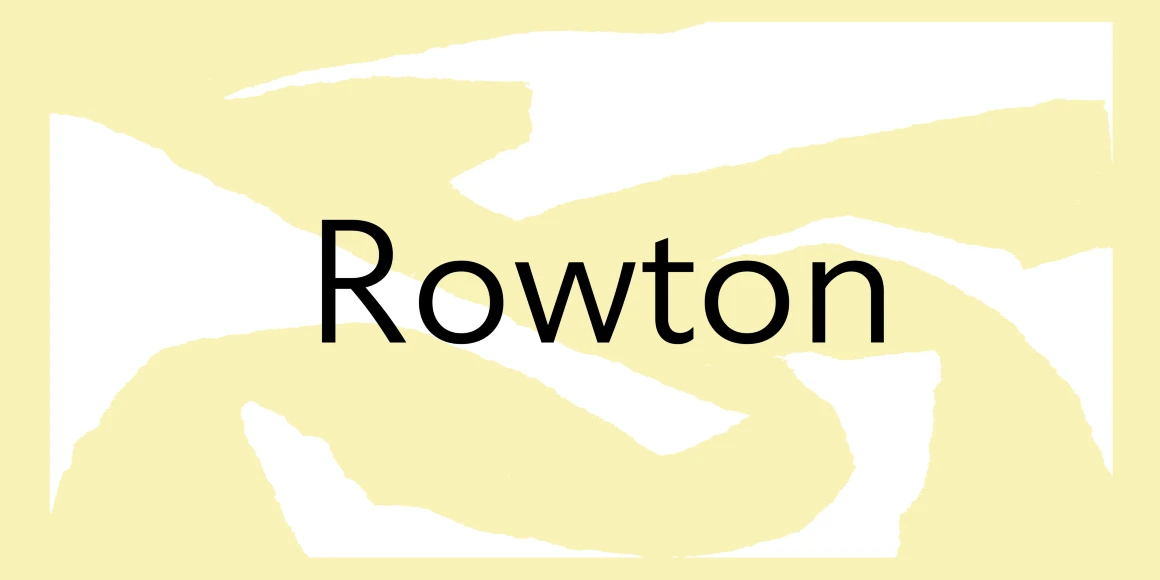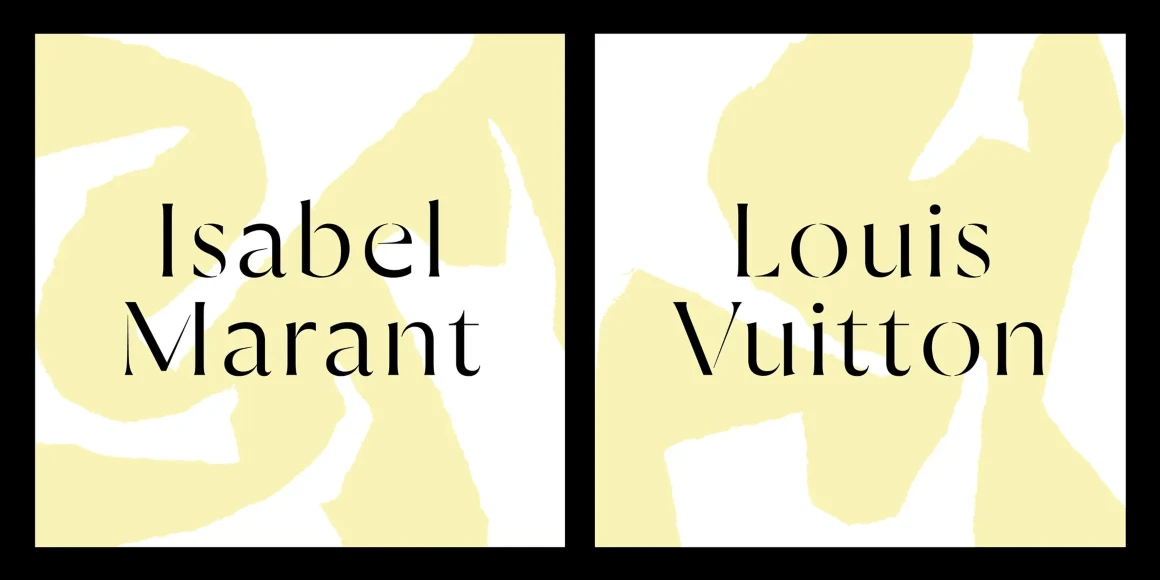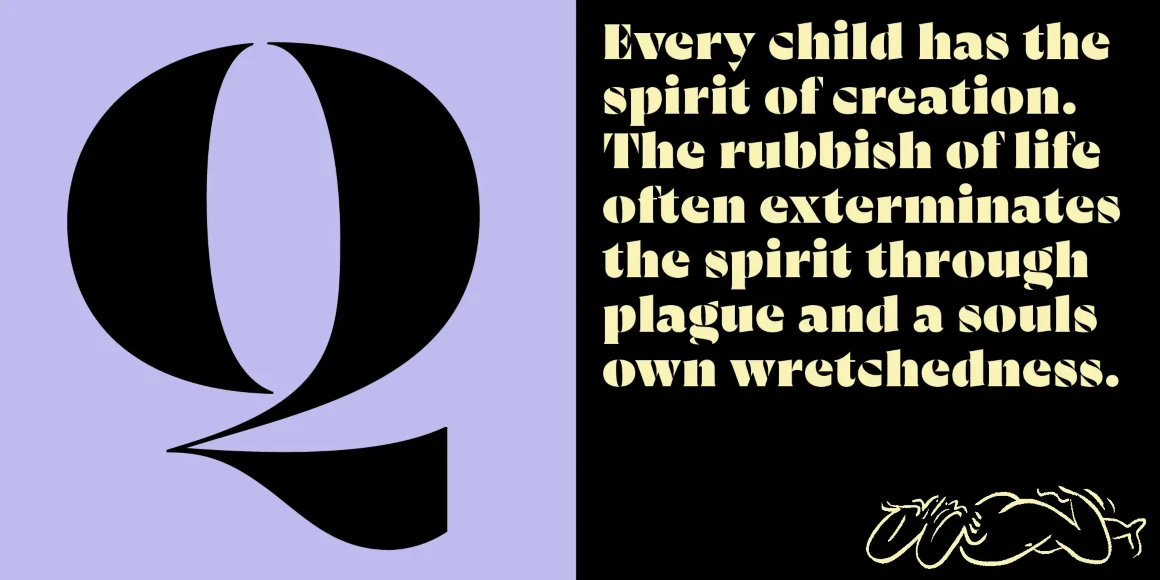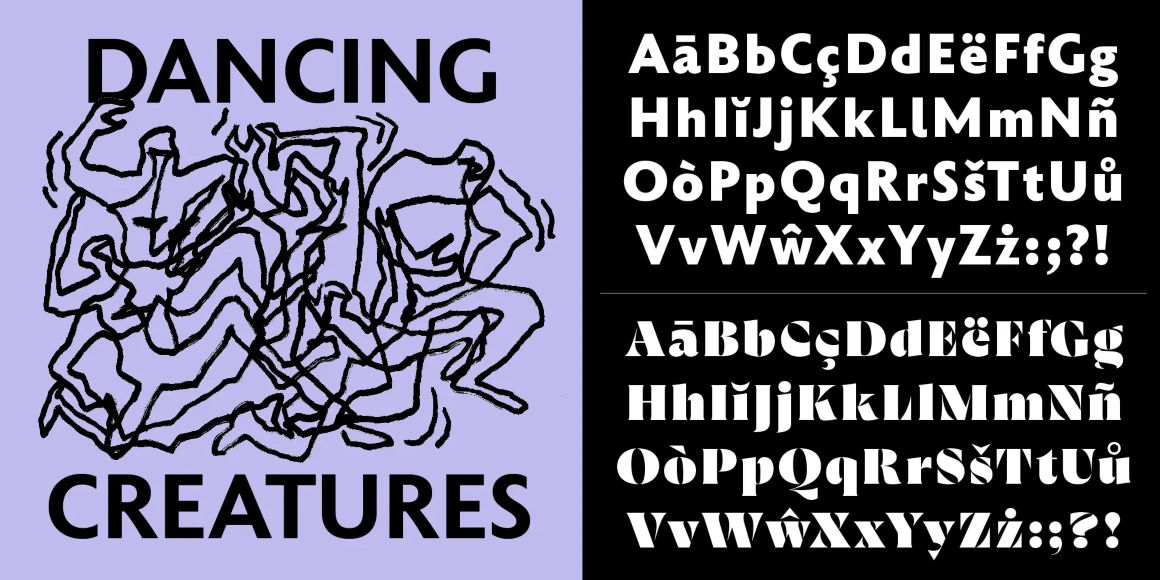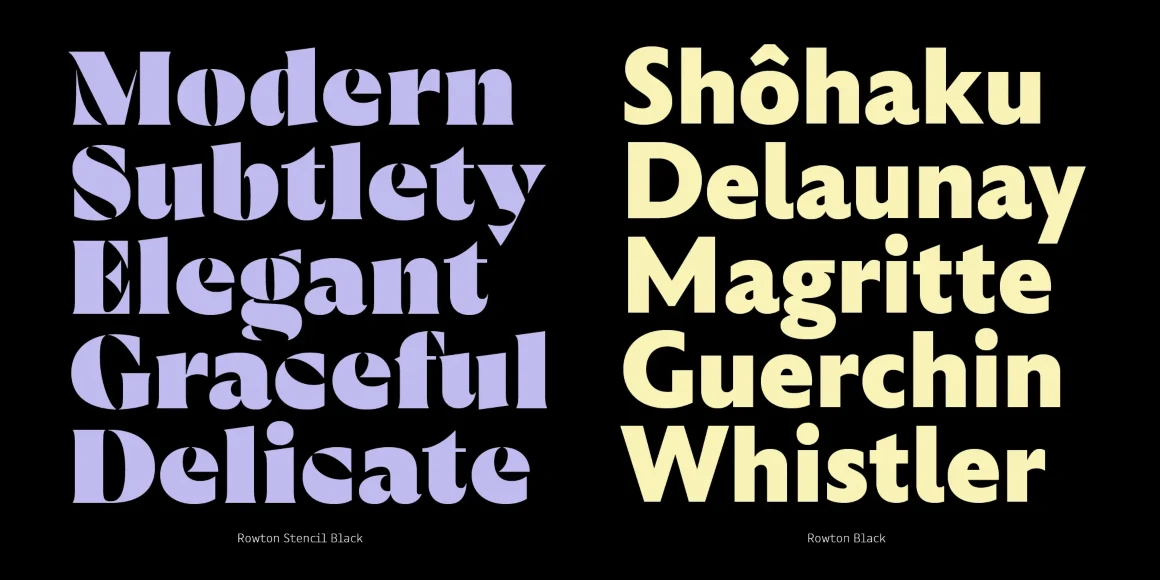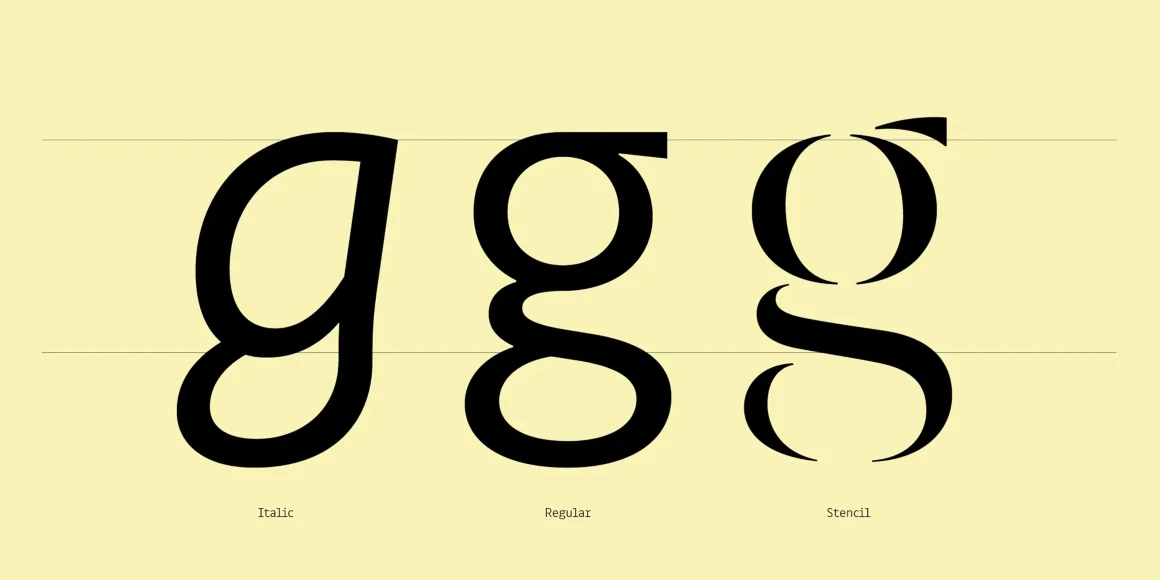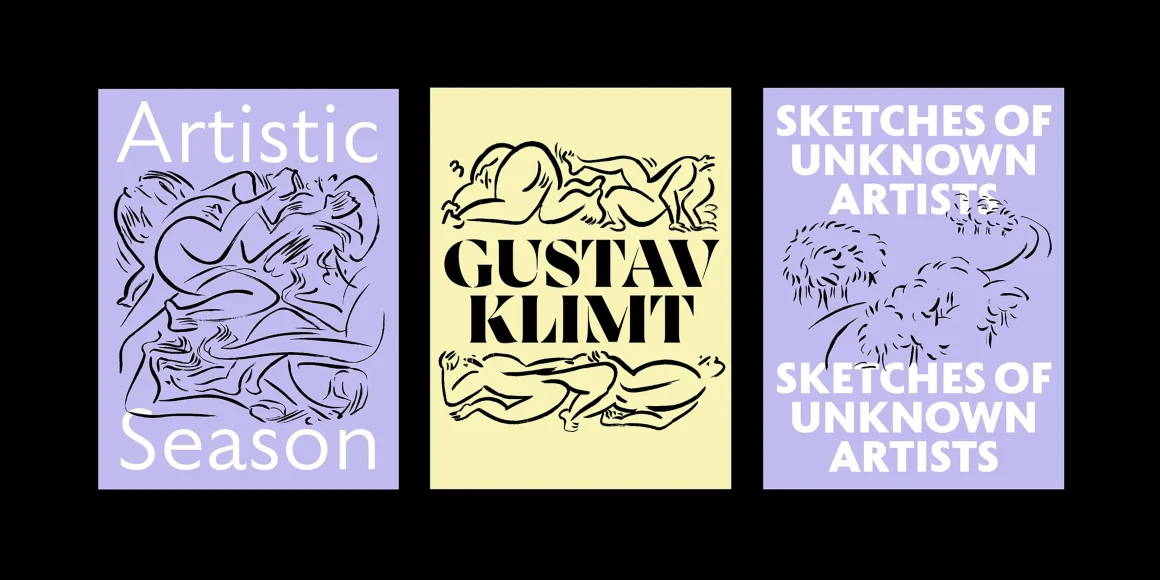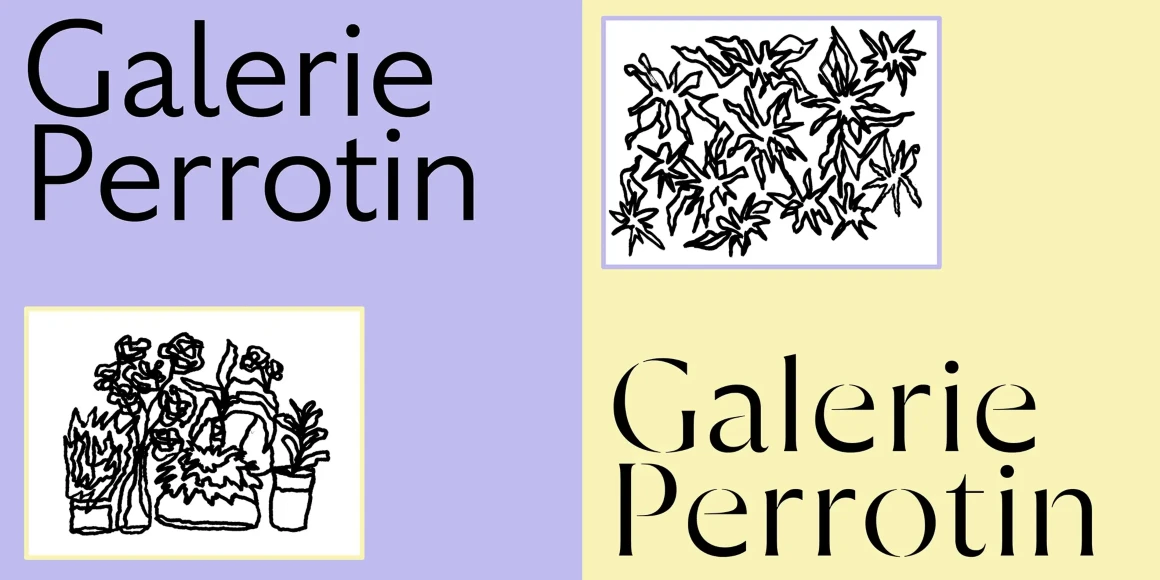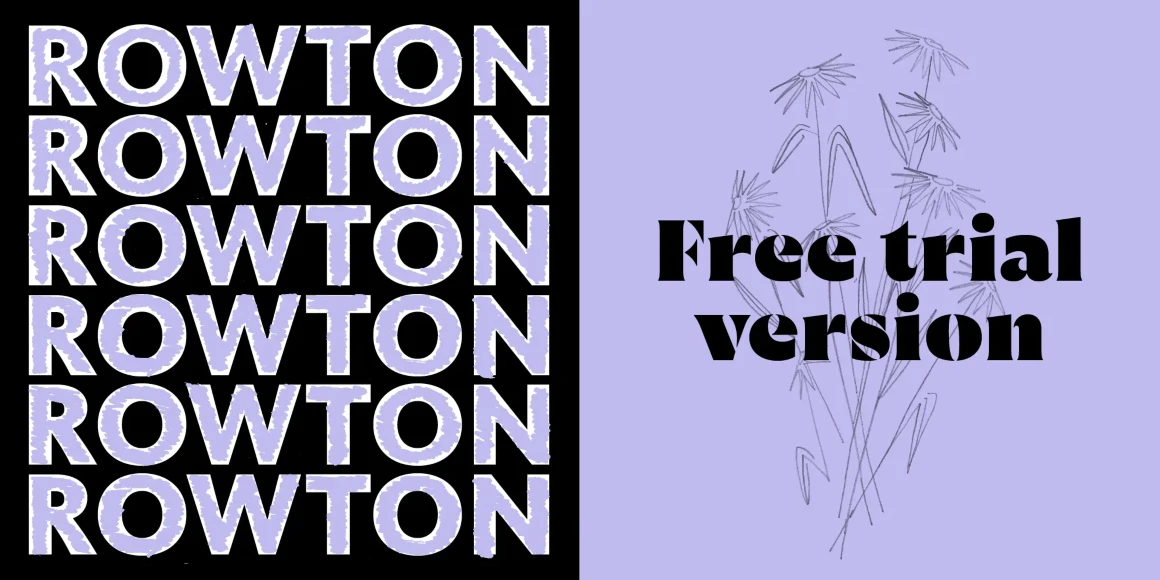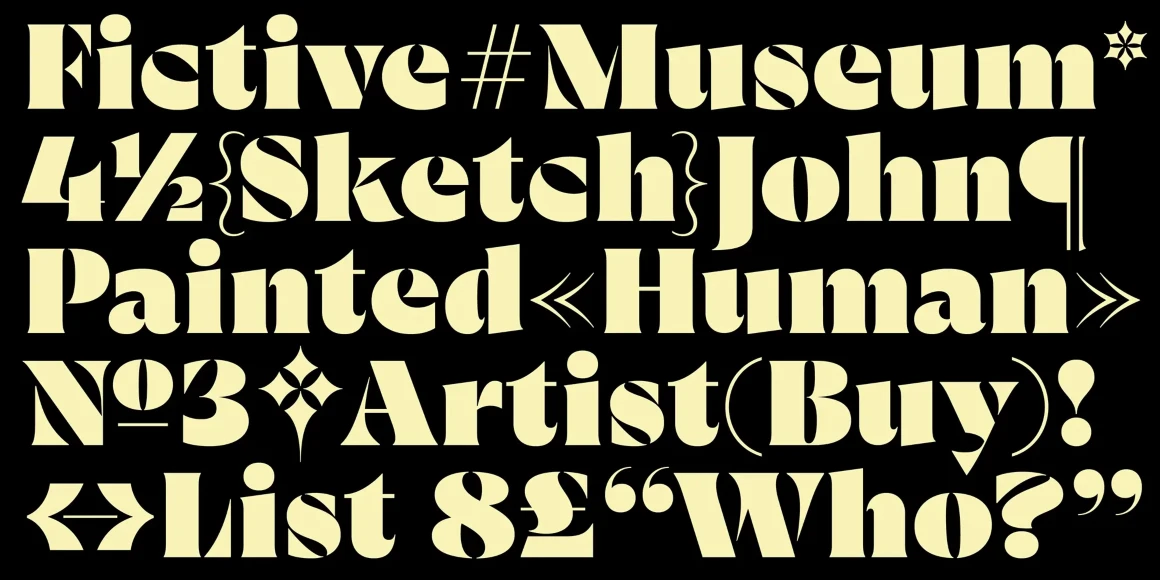
![Rowton font by Black[Foundry] — the word “Rowton” in upright sans-serif letters, on a background of torn paper shapes in pale yellow and white](https://typographer.io/1/assets/blk:rowton/banner-1.webp:size(1160,580)?dad2)
![Rowton font by Black[Foundry] — the words “Modern”, “Subtlety”, “Elegant”, “Graceful”, and “Delicate” in a light purple stencil serif, and the words “Shôhaku”, “Delaunay”, “Magritte”, “Guerchin”, and “Whistler” in a yellow upright serif.](https://typographer.io/1/assets/blk:rowton/banner-2.webp:size(1160,580)?d439)
![Rowton font by Black[Foundry] — three lowercase letters “g” in italic, upright sans, and seriffed stencil styles, labeled “Italic,” “Regular,” and “Stencil”](https://typographer.io/1/assets/blk:rowton/banner-3.webp:size(1160,580)?9f10)
![Rowton font by Black[Foundry] — three posters with different artworks and text: the first reads “Artistic Season” with abstract figures, the second “GUSTAV KLIMT” with figures, and the third “SKETCHES OF UNKNOWN ARTISTS” with trees.](https://typographer.io/1/assets/blk:rowton/banner-4.webp:size(1160,580)?6d70)
![Rowton font by Black[Foundry] — the words “Galerie Perrotin” in an upright sans serif and a seriffed stencil, with two images of hand-drawn plants.](https://typographer.io/1/assets/blk:rowton/banner-5.webp:size(1160,580)?39d7)
![Rowton font by Black[Foundry] — the word “ROWTON” repeated six times in a distressed sans serif, and the words “Free trial version” in a bold serif, over a sketch of flowers](https://typographer.io/1/assets/blk:rowton/banner-6.webp:size(1160,580)?048e)
![Rowton font by Black[Foundry] — five lines of large, upright, high-contrast serif letters and symbols, including the words Fictive#Museum*, 4Sketch}John, PaintedHuman, N3Artist(Buy)!, and List 8Who?](https://typographer.io/1/assets/blk:rowton/banner-7.webp:size(1160,580)?ebde)